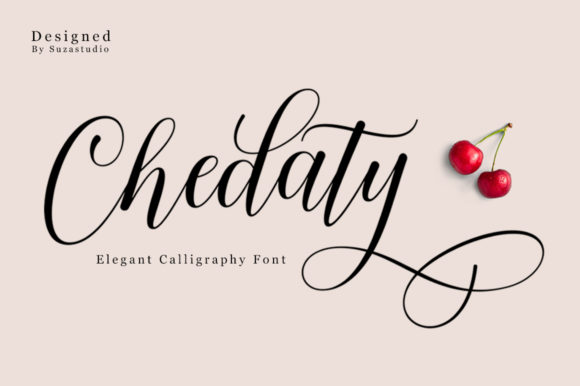
Chedaty Font: The Perfect Choice for Creative Designs
Are you looking for a font that can add a touch of personality to your designs? Look no further than Chedaty Font, a cute script font with an irregular baseline that is perfect for a variety of creative projects. In this article, we’ll take a closer look at Chedaty Font and explore its features, uses, and benefits.
What is Chedaty Font?
Chedaty Font is a modern script font that features a unique, irregular baseline that gives it a playful and whimsical feel. The font is designed to be highly legible and versatile, making it perfect for a wide range of applications, from wedding invitations and greeting cards to logos and business cards.
Key Features of Chedaty Font
- Irregular Baseline: The irregular baseline of Chedaty Font gives it a unique, hand-drawn feel that sets it apart from more traditional fonts.
- Modern and Flowing Style: Chedaty Font features a modern and flowing style that makes it perfect for designs that require a touch of elegance and sophistication.
- Cute and Playful: The font’s cute and playful feel makes it perfect for designs that require a touch of whimsy and personality.
- Highly Legible: Despite its unique style, Chedaty Font is highly legible, making it perfect for use in a variety of applications.
Uses for Chedaty Font
Chedaty Font is a versatile font that can be used in a wide range of applications, including:
- Wedding Invitations: The font’s elegant and sophisticated style makes it perfect for wedding invitations and other wedding-related designs.
- Greeting Cards: Chedaty Font is also great for use in greeting cards, including birthday cards, thank you cards, and more.
- Logos and Business Cards: The font’s modern and professional style makes it perfect for use in logos and business cards.
- Quotes and Inspirational Designs: Chedaty Font is also great for use in quotes and inspirational designs, adding a touch of personality and whimsy to your message.
- Ink and Watercolor Designs: The font’s playful and irregular style makes it perfect for use in ink and watercolor designs, adding a touch of handmade charm to your artwork.
Benefits of Using Chedaty Font
There are many benefits to using Chedaty Font in your designs, including:
- Unique and Eye-Catching: Chedaty Font is a unique and eye-catching font that can help your designs stand out from the crowd.
- Versatile: The font’s versatility makes it perfect for use in a wide range of applications, from wedding invitations to logos and business cards.
- Easy to Read: Despite its unique style, Chedaty Font is highly legible, making it easy to read and understand.
- Great for Creative Projects: Chedaty Font is perfect for use in creative projects, such as ink and watercolor designs, scrapbooking, and more.
Tips for Using Chedaty Font
Here are a few tips for using Chedaty Font in your designs:
- Pair with Other Fonts: Chedaty Font pairs well with other fonts, such as sans-serif fonts and serif fonts. Experiment with different pairings to find the one that works best for your design.
- Use in Combination with Images: Chedaty Font looks great in combination with images, such as photographs and illustrations. Use the font to add text to your images and create a cohesive design.
- Experiment with Colors: Chedaty Font looks great in a variety of colors, from bold and bright to soft and pastel. Experiment with different colors to find the one that works best for your design.
Chedaty Font is a unique and versatile font that is perfect for a wide range of creative projects. Its modern and flowing style, combined with its irregular baseline and cute and playful feel, make it a great choice for designers and crafters looking to add a touch of personality to their designs. Whether you’re creating wedding invitations, greeting cards, logos, or more, Chedaty Font is a great choice.